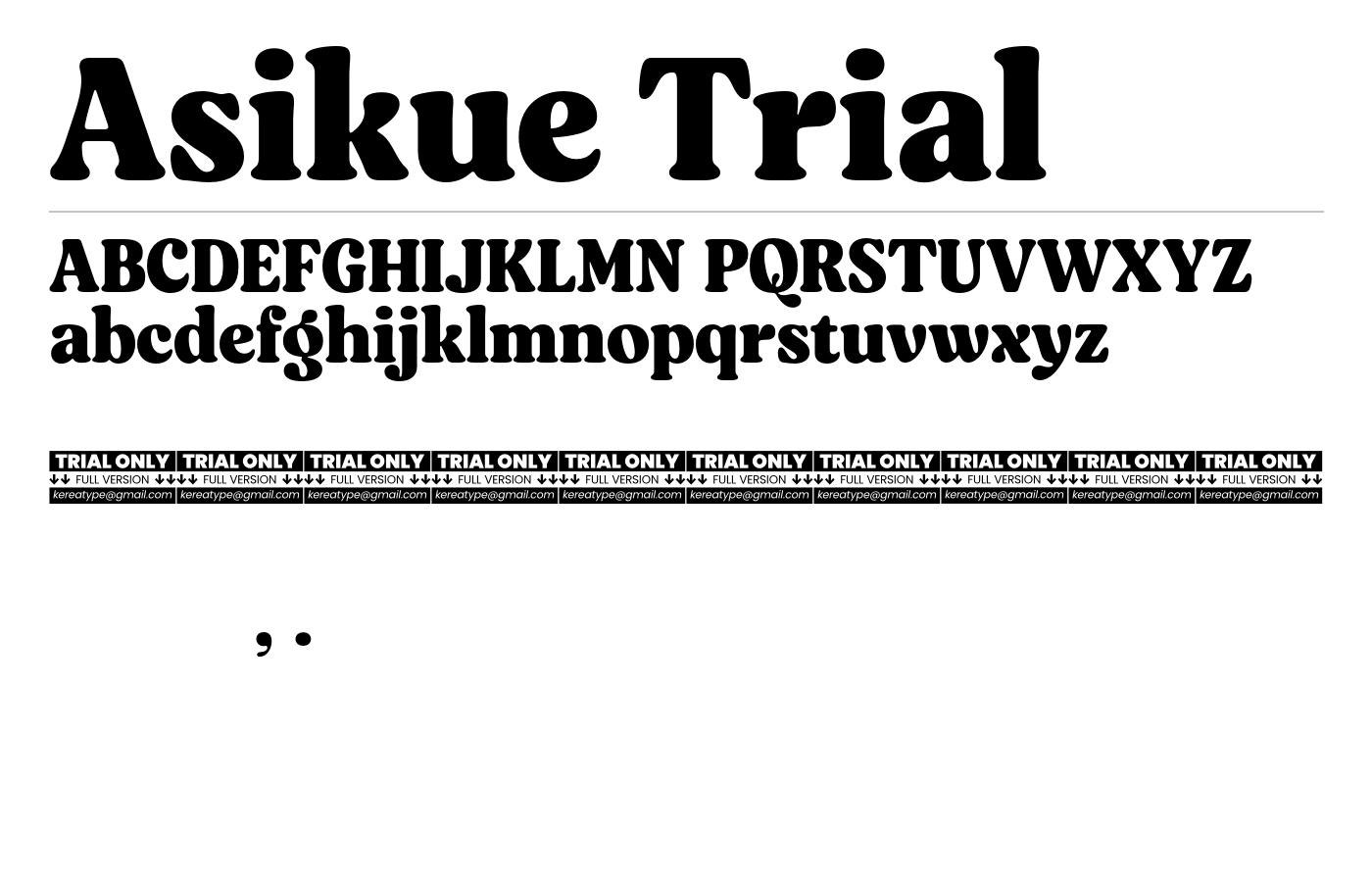
Asikue Trial is a bold, slab serif font featuring thick, rounded serifs and high stroke contrast that give it a strong, vintage character. Its sturdy letterforms with distinctive curves and playful shapes make it ideal for eye-catching headlines, logos, and branding projects that want to convey a sense of warmth and retro charm. This font works well in contexts where bold presence and personality are key, such as packaging, posters, and fashion branding.
Asikue Trial Font
About Asikue Trial Font